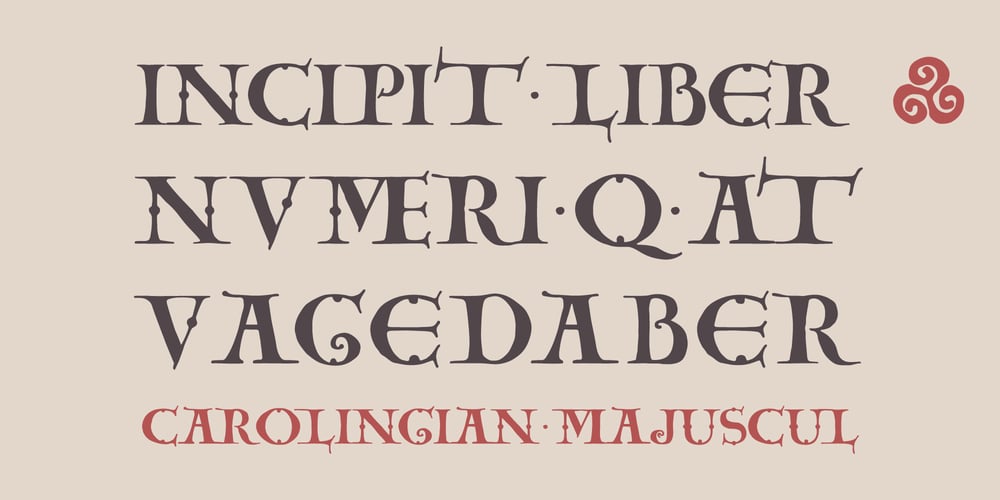
Carolingian Majuscul Font Family was designed by Roman Korolev and published by Kaer. Carolingian Majuscul contains 1 styles and family package options. I’m happy to present you my new Romanesque font from the Codex Gigas. The manuscript was created in the early 13th century in the Benedictine monastery of Podlažice in Bohemia.The codex was written in a handwriting atypical for the 13th century, which is actually a late version of the Carolingian minuscule.Texts about repentance and exorcism were written in large Majuscule (Square Capitals (Imperial Roman capitals written with a brush)). Majuscules first incised in stone more than two millennia ago, married to minuscule letterforms that evolved from manuscript hands of the eighth and ninth centuries. Majuscule font is the name given to a type of decorative upper-case letters used in inscriptions and, typically, at the start of a section of text in medieval manuscripts. They are characterized by their straight forms unlike rounded in Lombardic capitals with thick, curved stems. Majuscule capitals were also used to write words or entire phrases. The text is divided into words, punctuation marks are used consistently – periods indicate the end of a sentence and the middle of a phrase.You will get:* Uppercase glyphs* Numbers and symbols* Multilingual support * Ligatures* Free future updatesThank you!